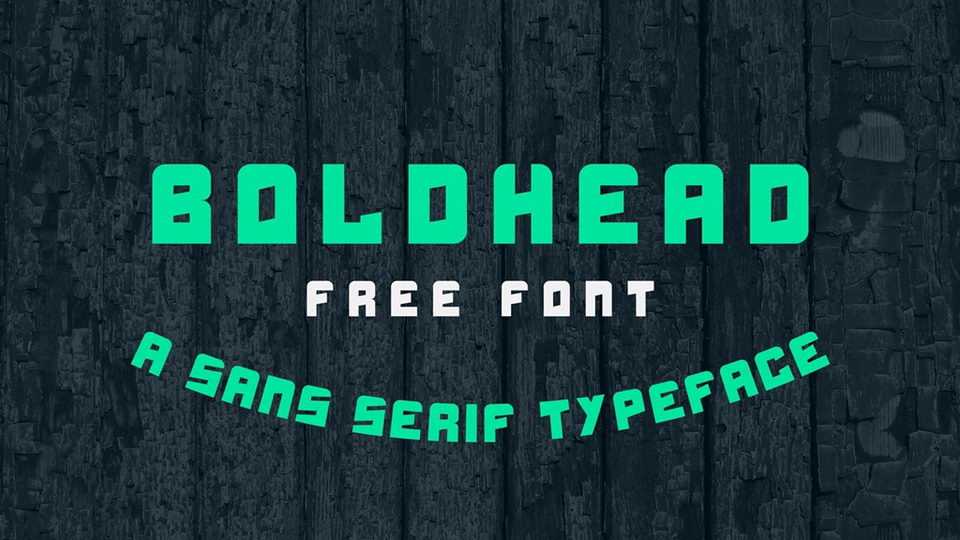
Download Boldhead font, a sharp and bold display typeface. This font features a unique bold design which makes it perfect for creating eye-catching headlines & branding elements.
Designer: Rakib Mostafiz